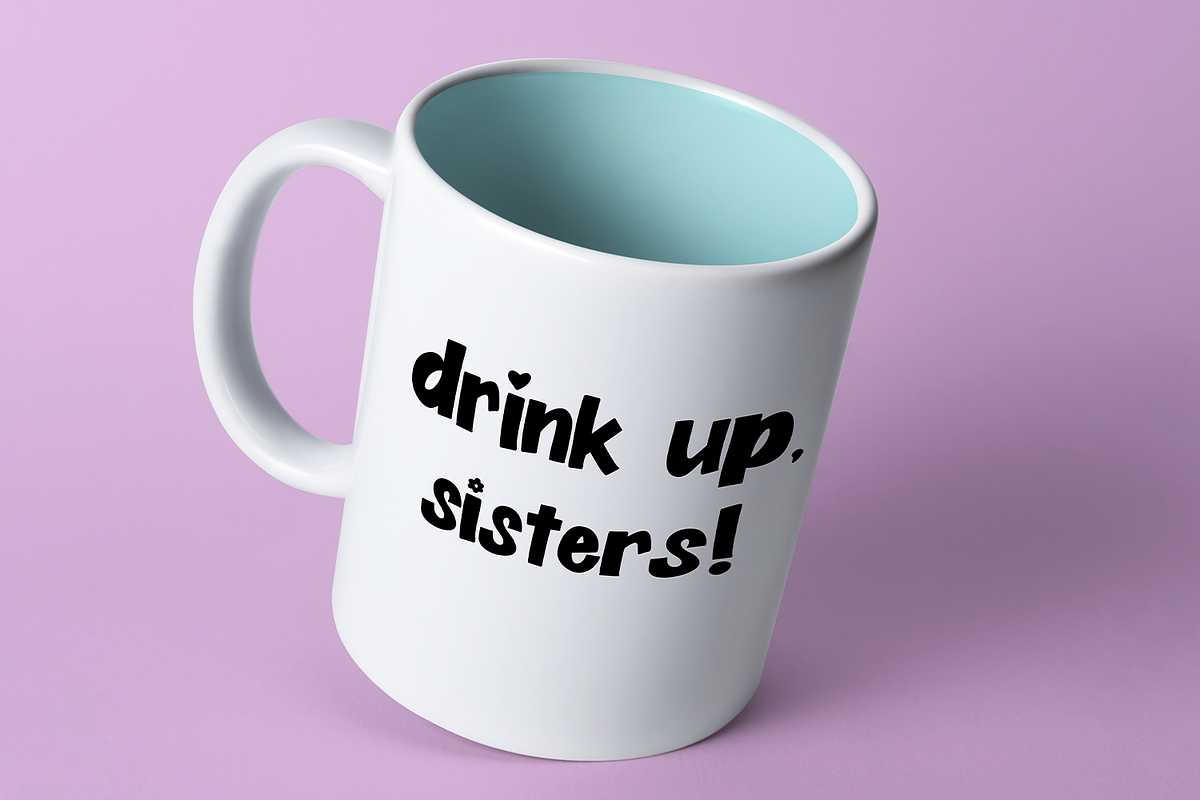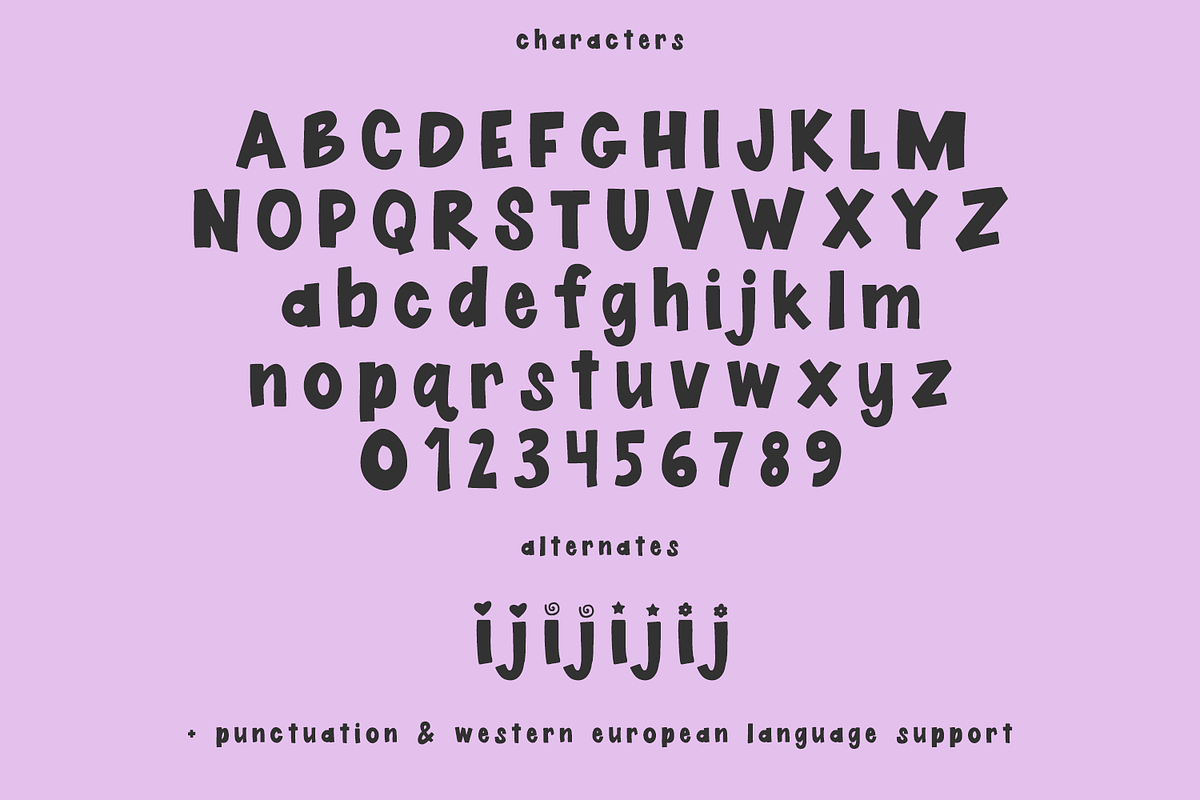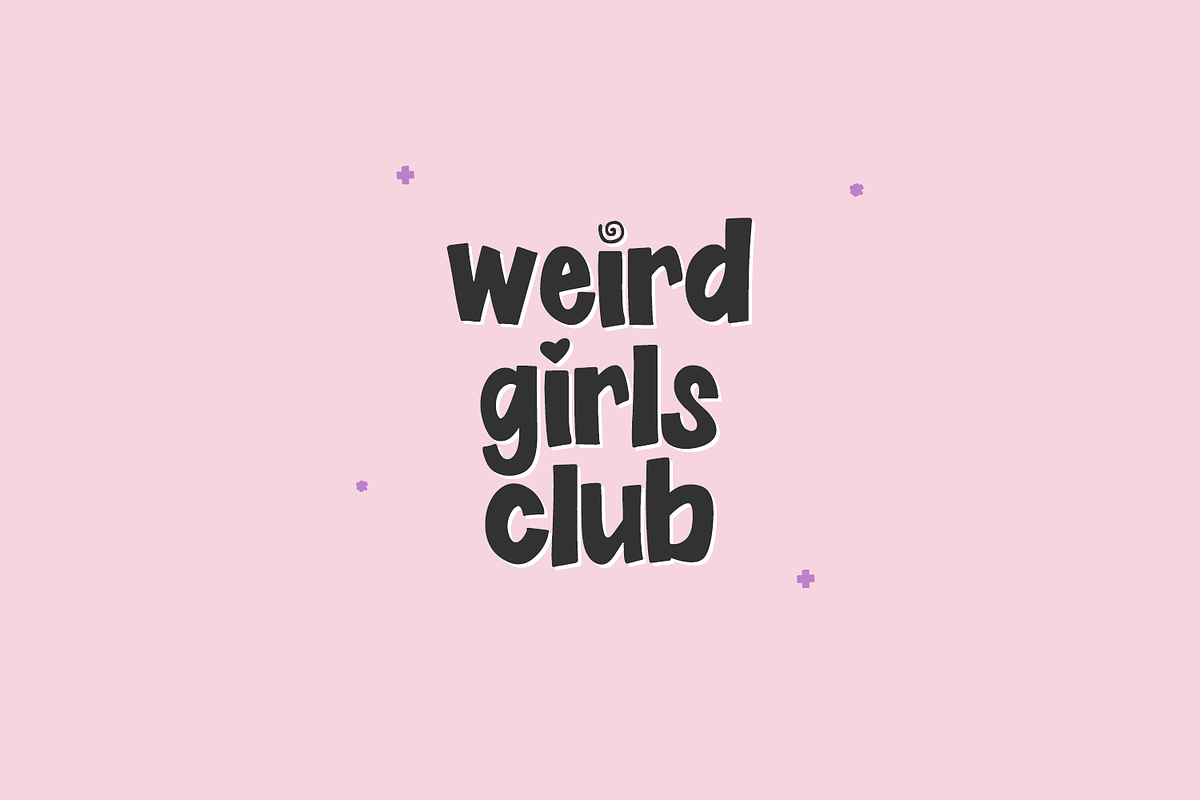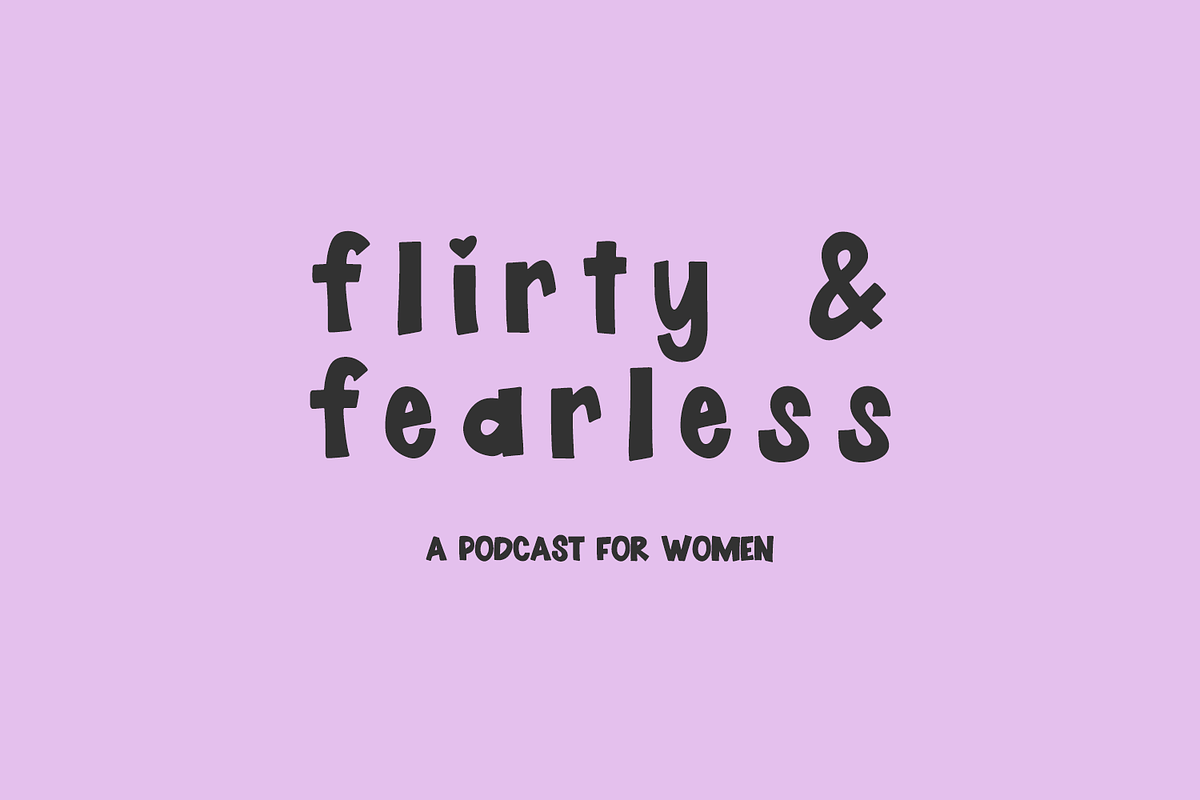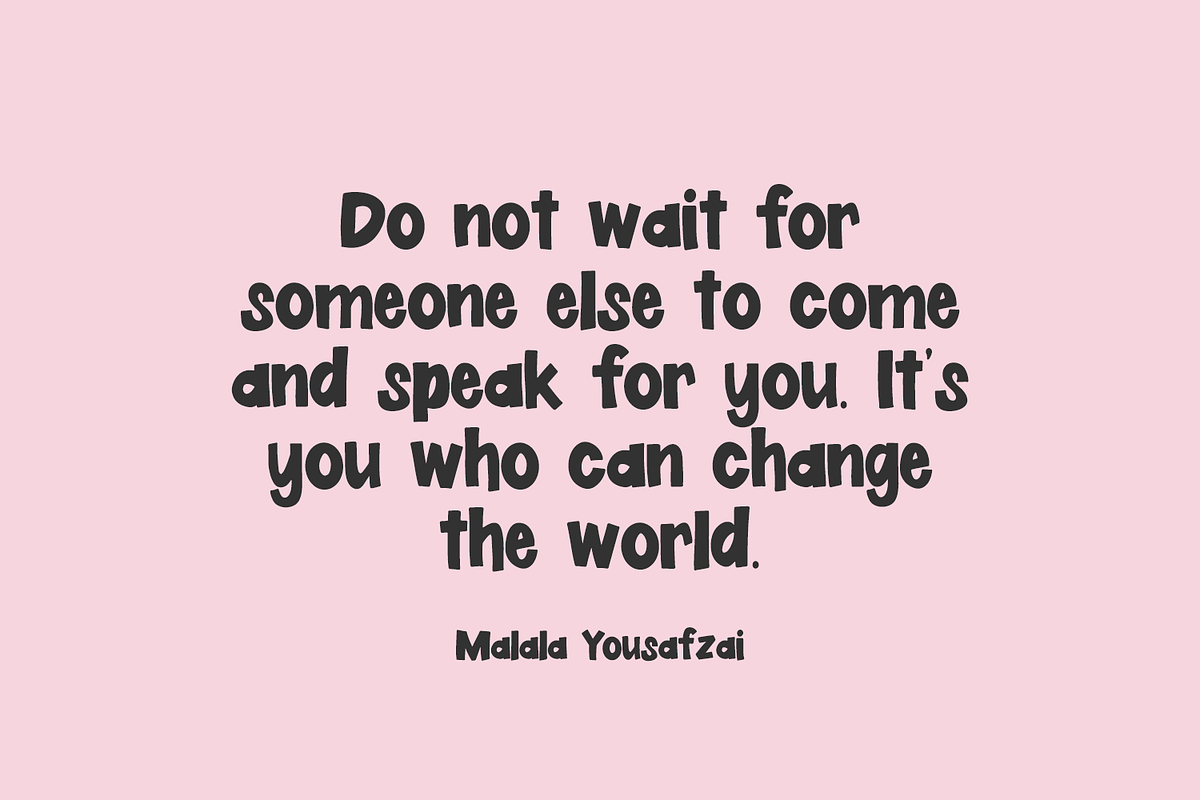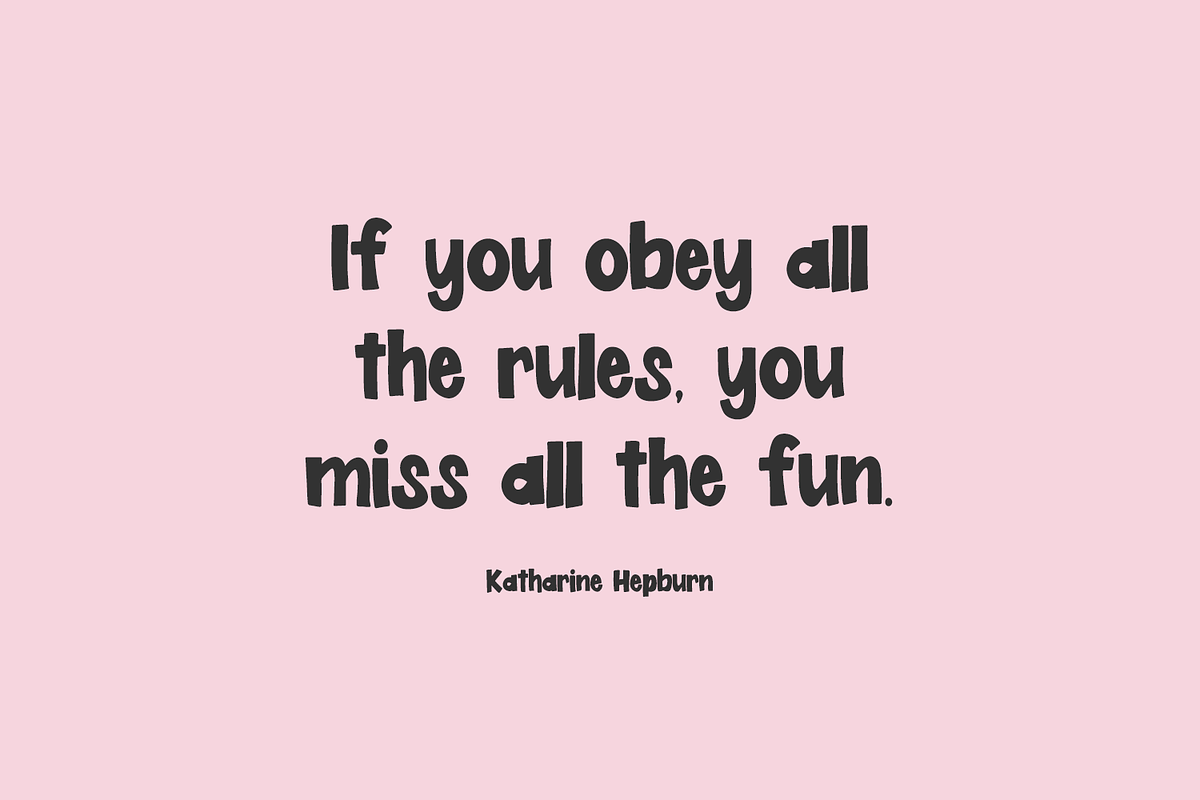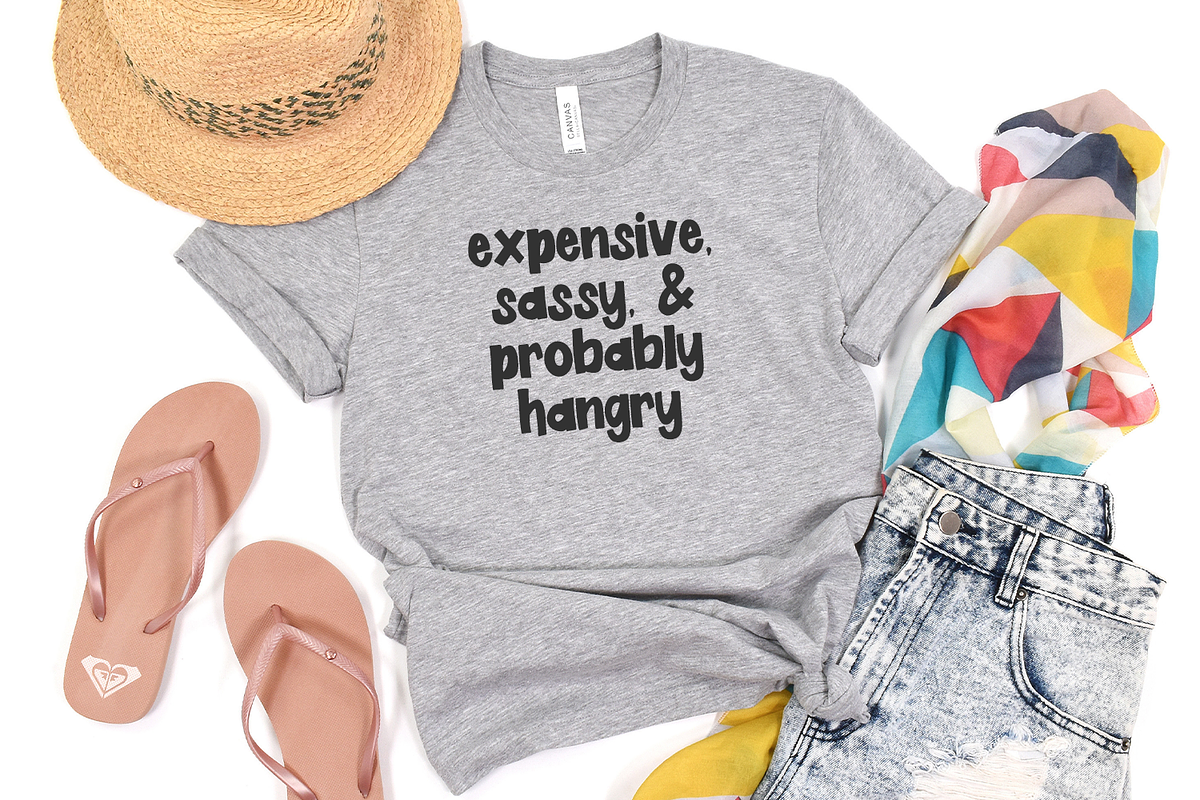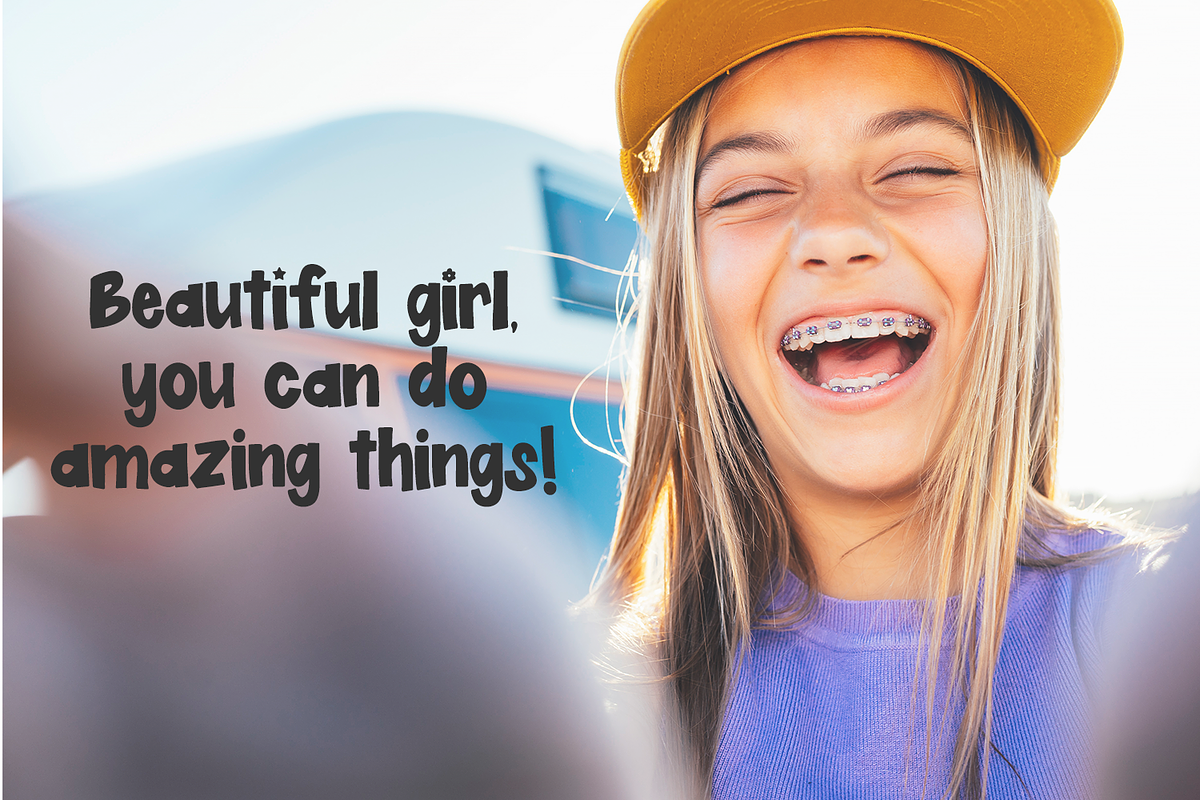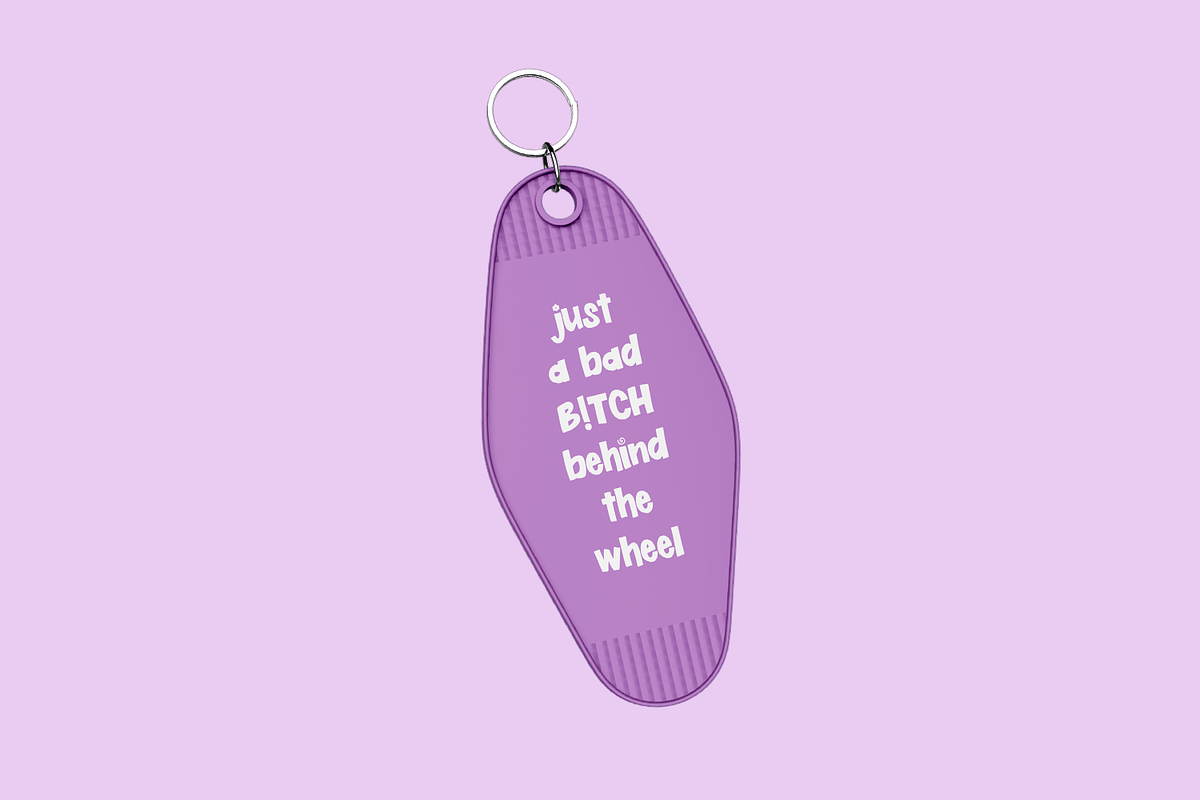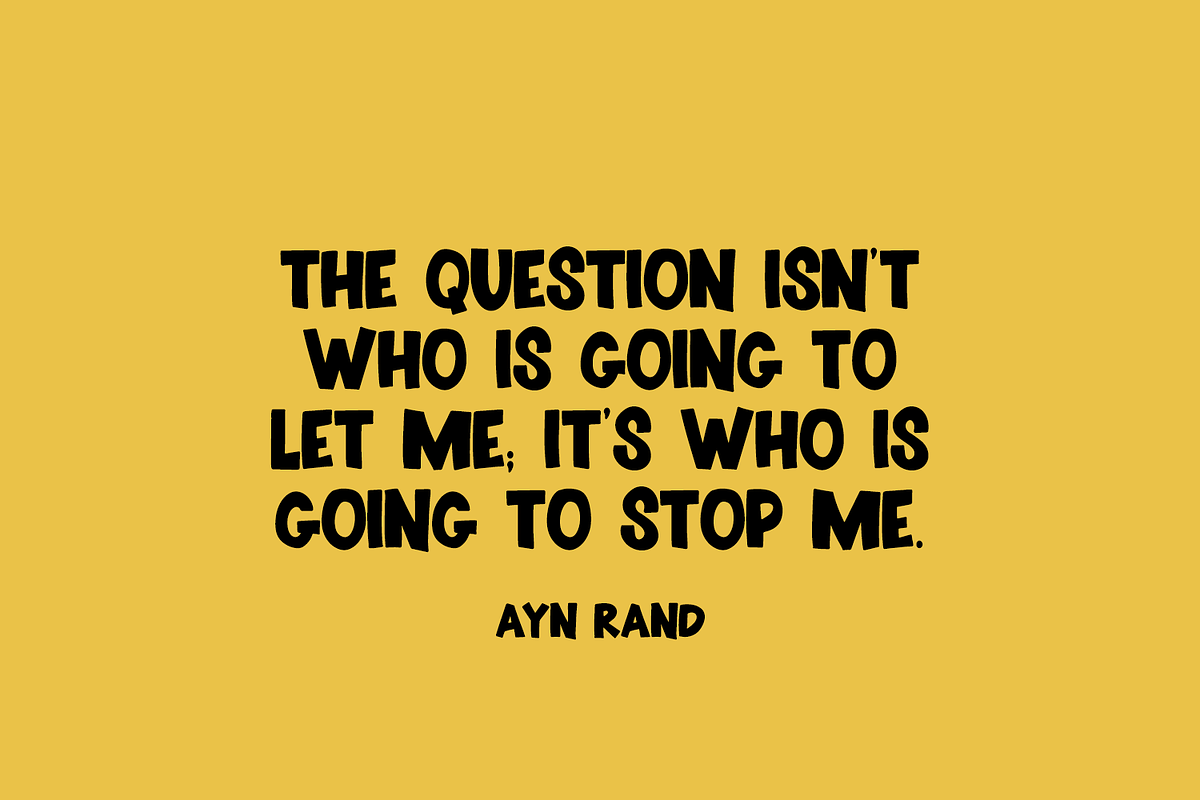
Weird Girls Club Sans
Welcome to the Weird Girls Club! Weird Girls Club is a chunky sans font. Itโs whimsical & playful, and includes alternate dotted i & j options that include hearts, swirls, stars, & flowers. Weird Girls Club is perfect for fun branding projects, social media graphics, marketing materials, and crafting projects with your Cricut machine or Silhouette machine.
Weird Girls Club includes:
- full upper + lowercase characters
- numbers + punctuation
- 8 alternate characters - cute dotted i & j options